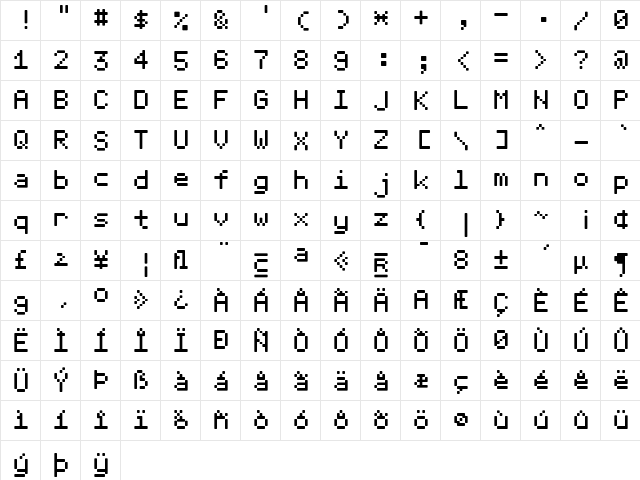
Telegrama Raw
| Foundry | YOFonts |
| Designer | Yamaoka Yasuhiro |
Design Context for Telegrama Typeface
Telegrama takes a measured approach to typography — its balanced proportions and neutral character make it a reliable workhorse for both digital and print work.